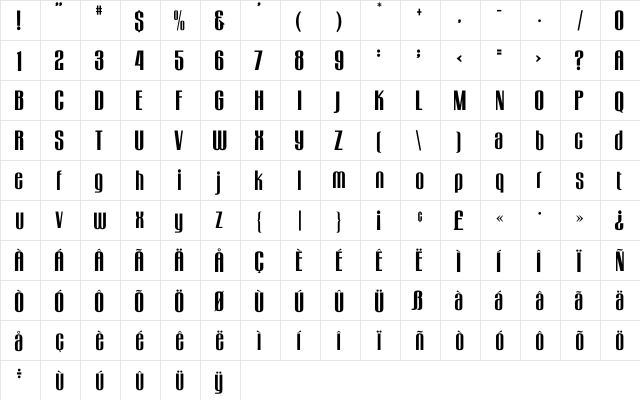
LHF Aristocrat Regular
| Foundry | John Studden for Letterhead Fonts |
| Designer | John Studden for Letterhead Fonts |
Design Context for LHF Aristocrat Typeface
LHF Aristocrat offers clean, dependable letterforms without strong stylistic allegiance, making it a practical choice for designers who need flexibility.